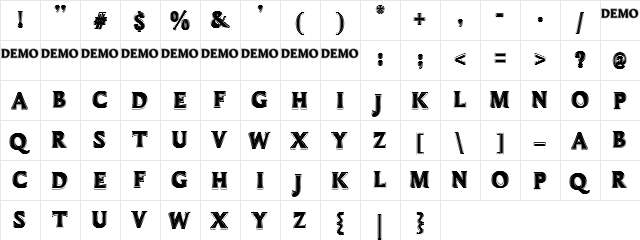
Thrive Demo Regular
| Foundry | Epiclinez |
| Designer | Aldy Sidik |
Design Context for Thrive Demo Typeface
Thrive Demo takes a measured approach to typography — its balanced proportions and neutral character make it a reliable workhorse for both digital and print work.